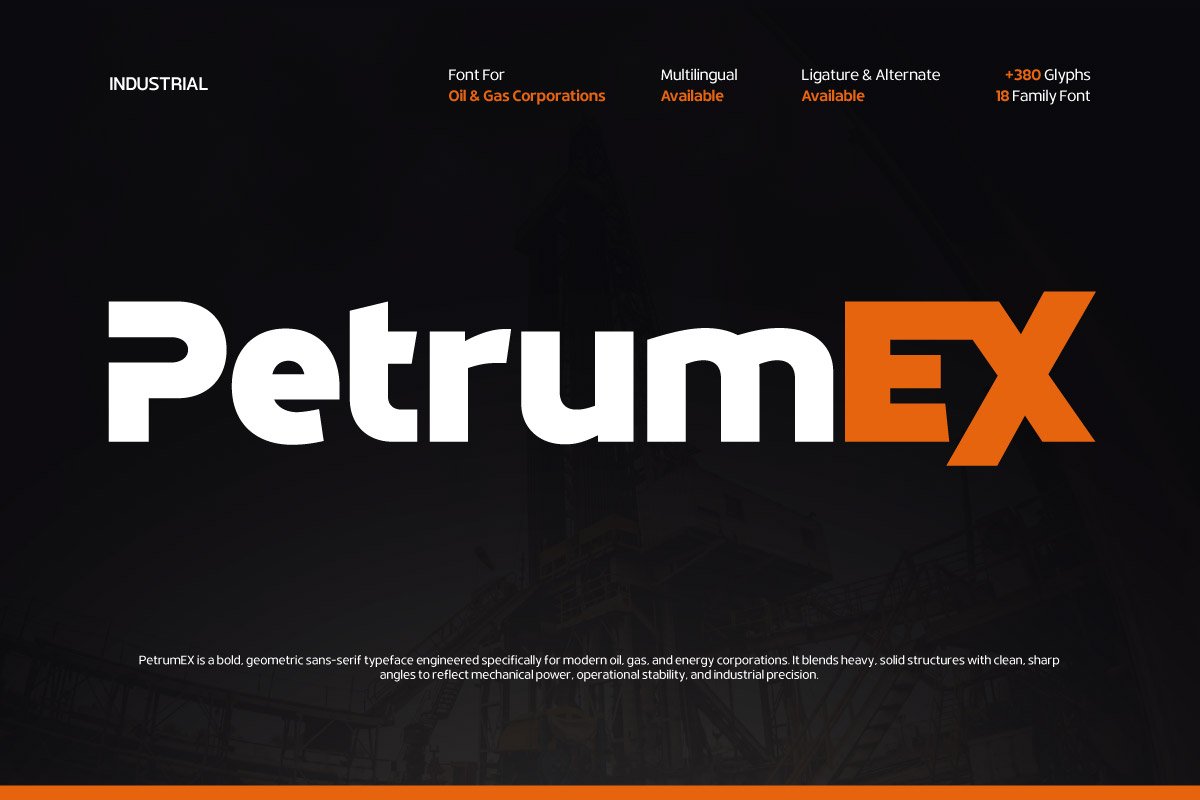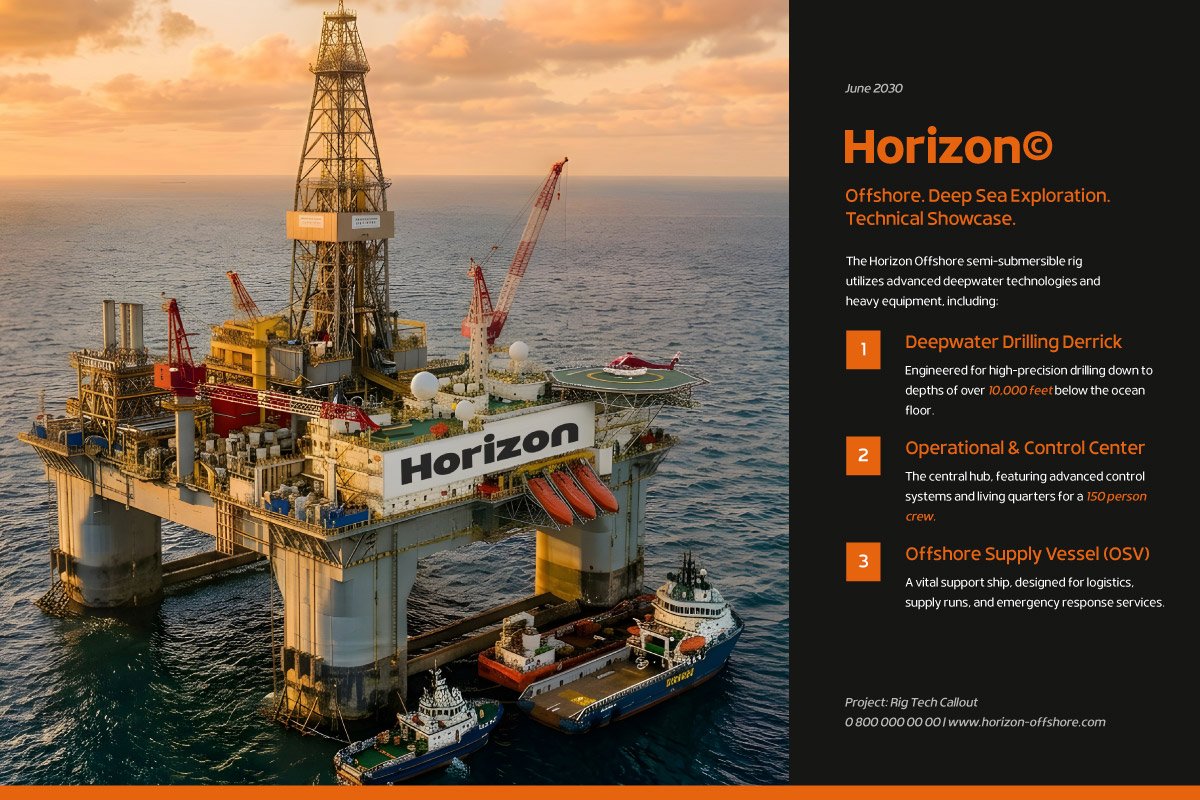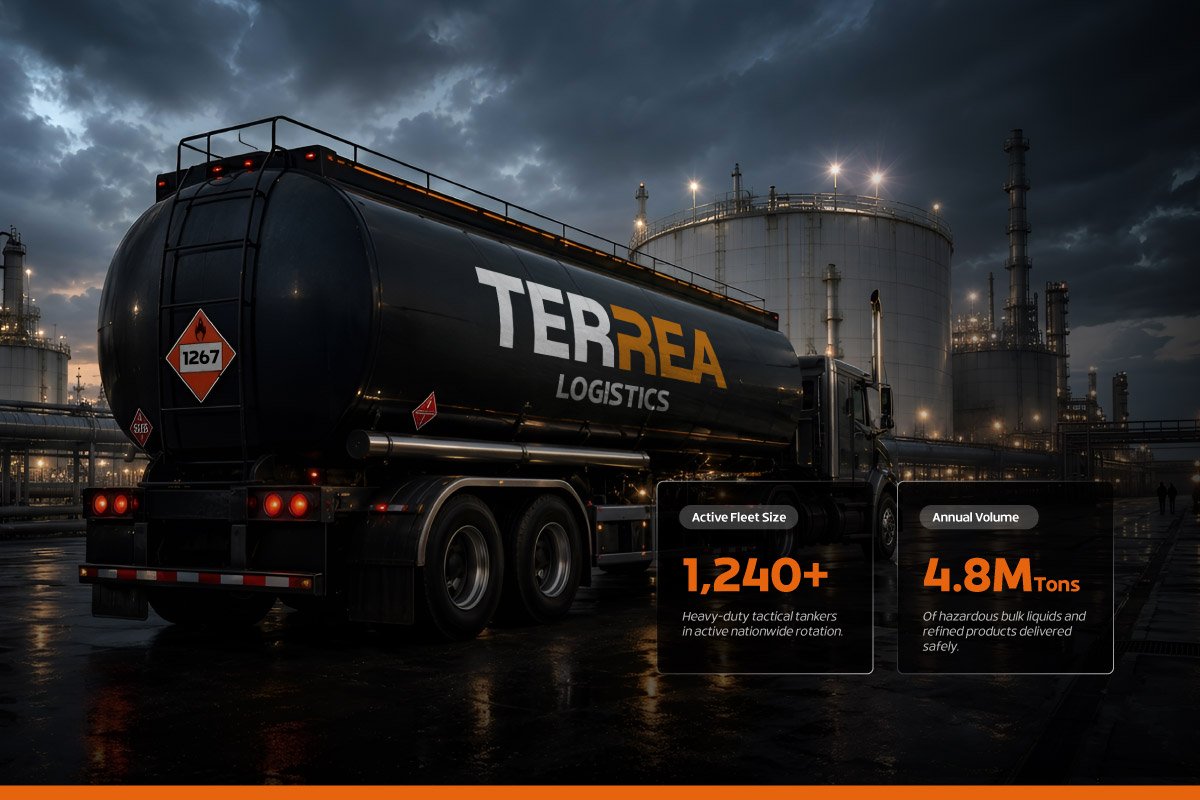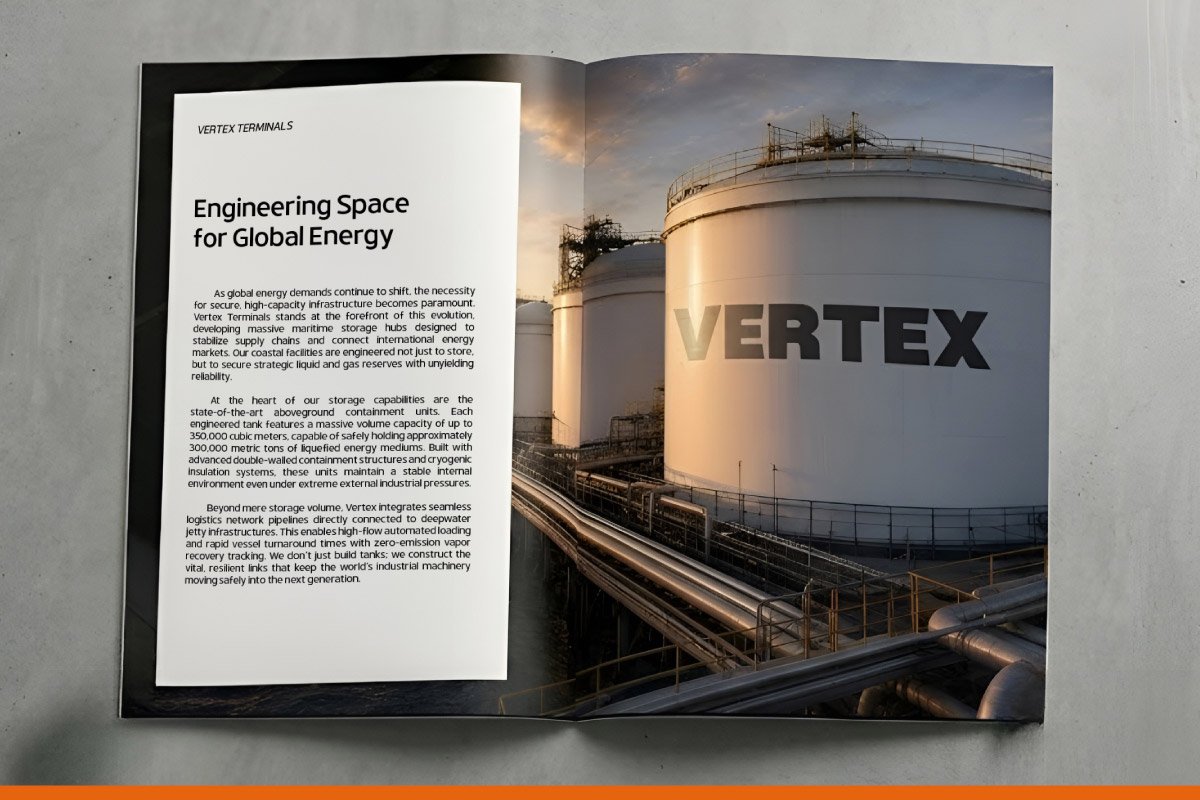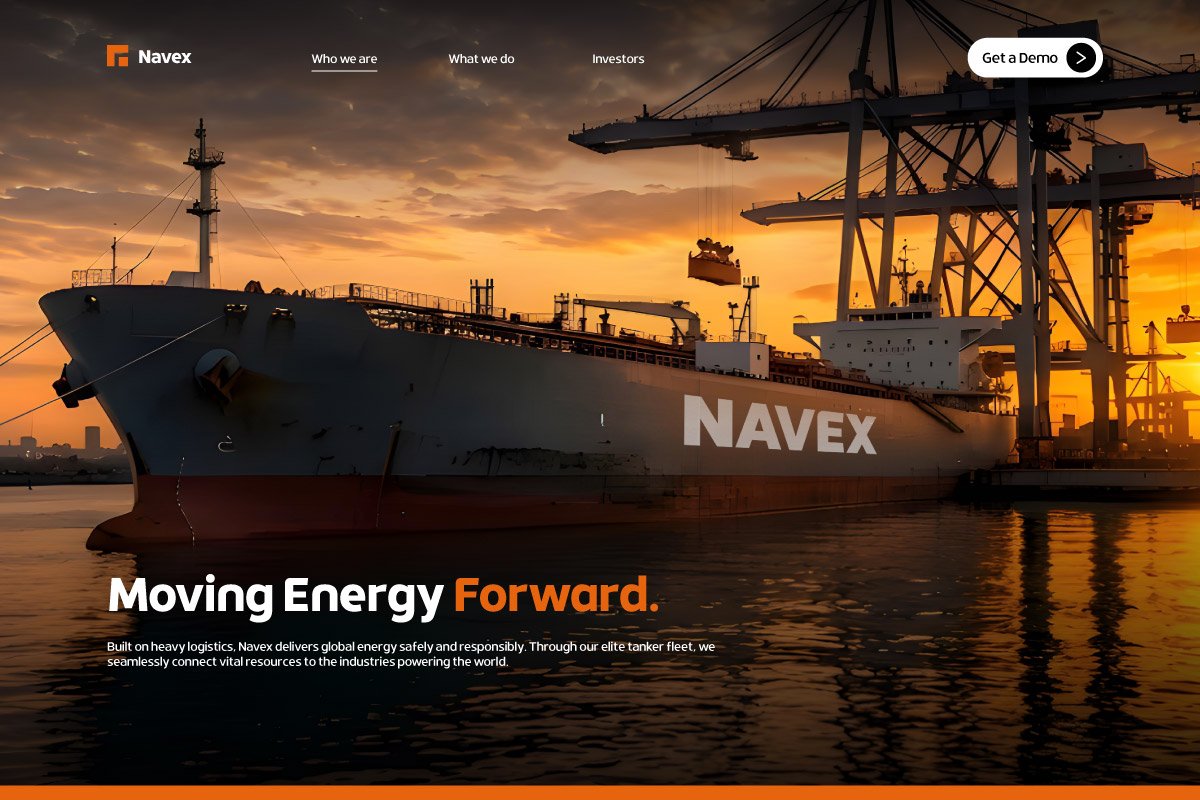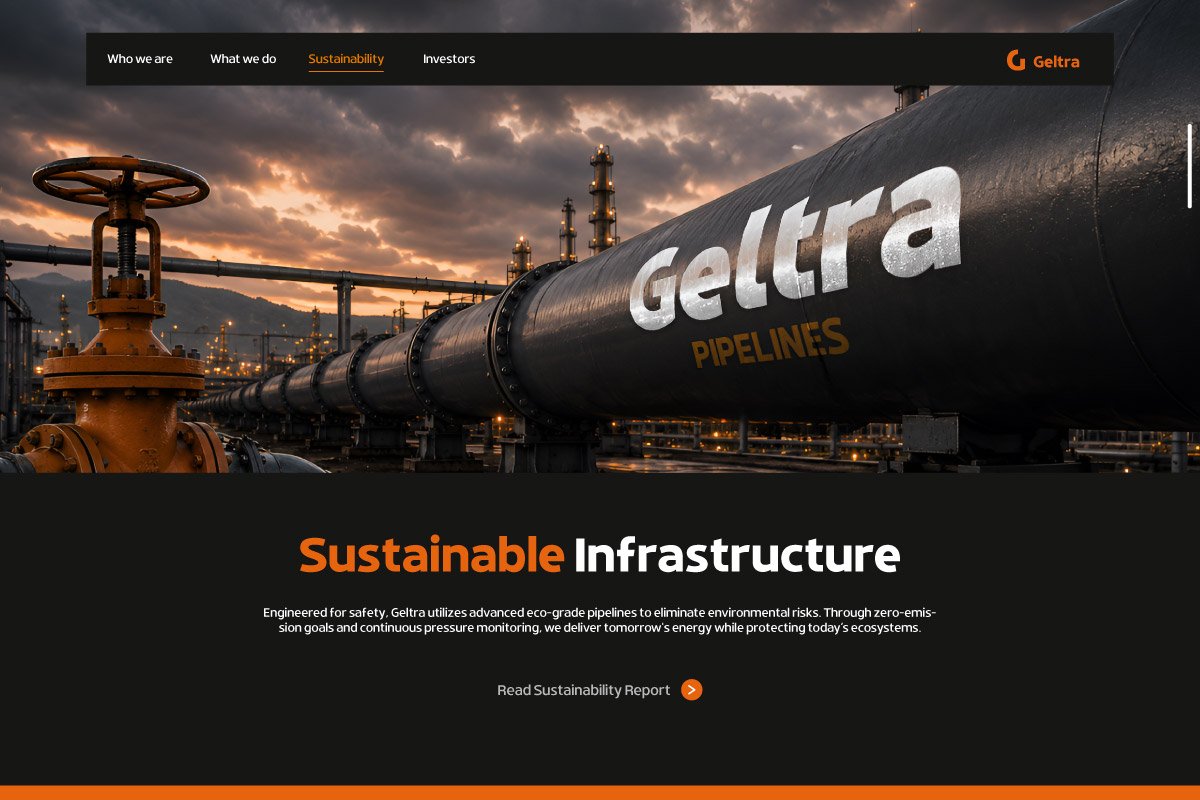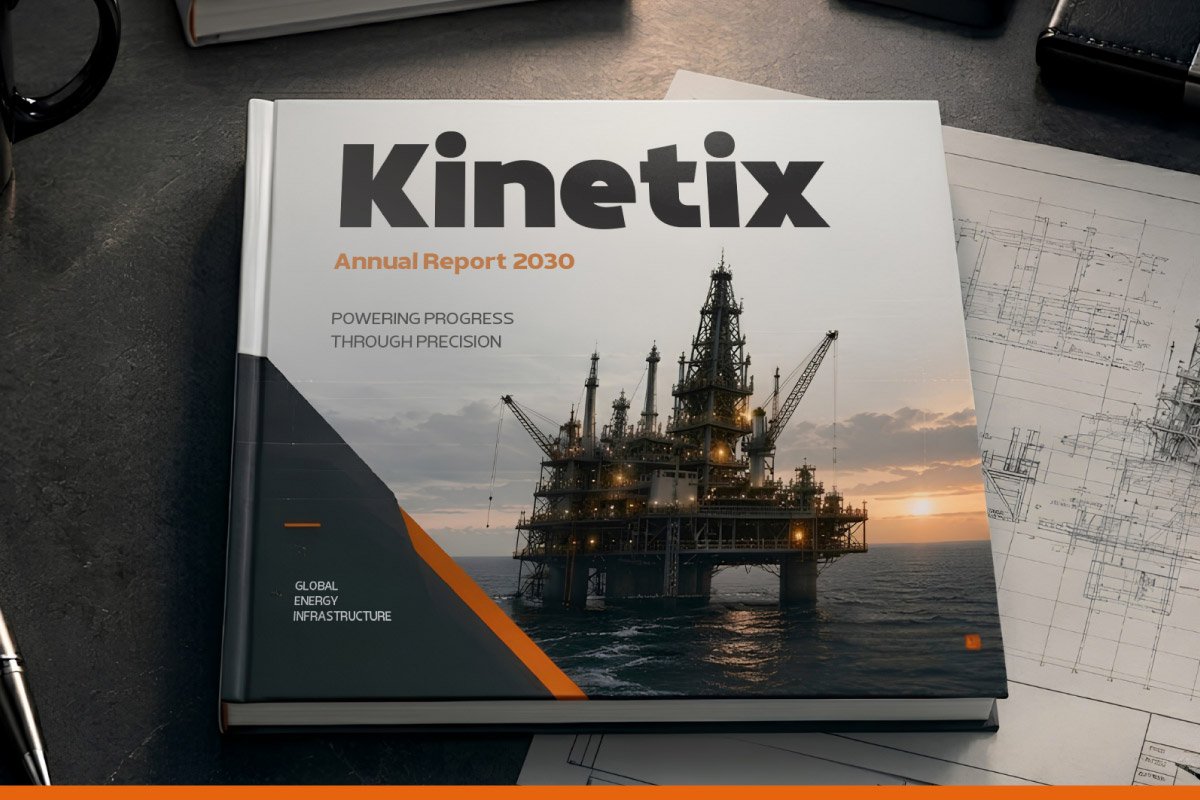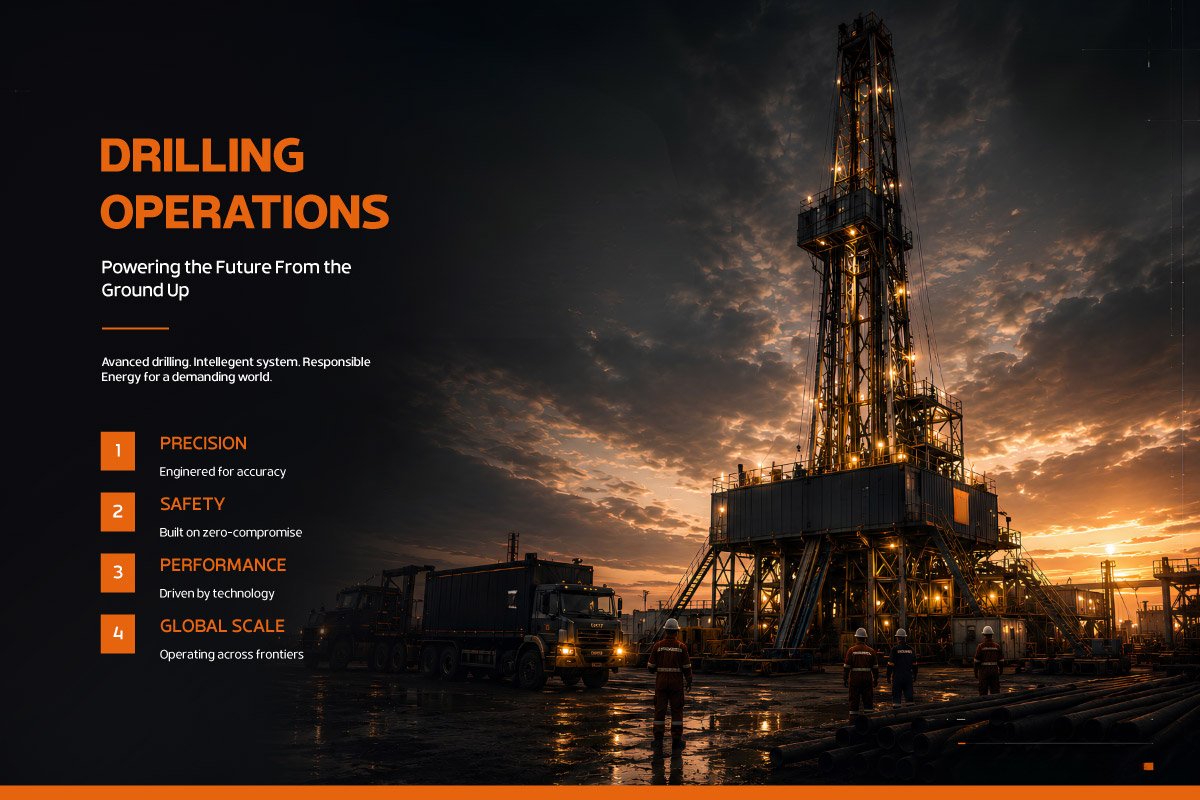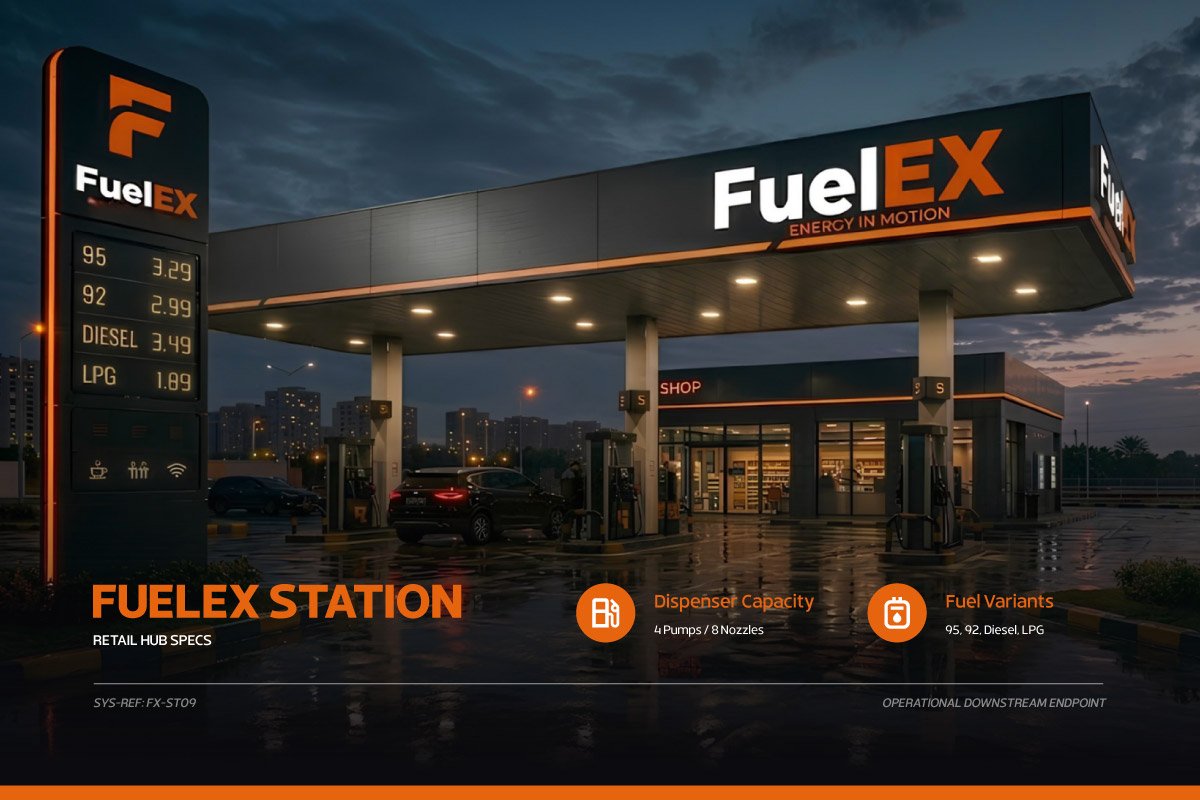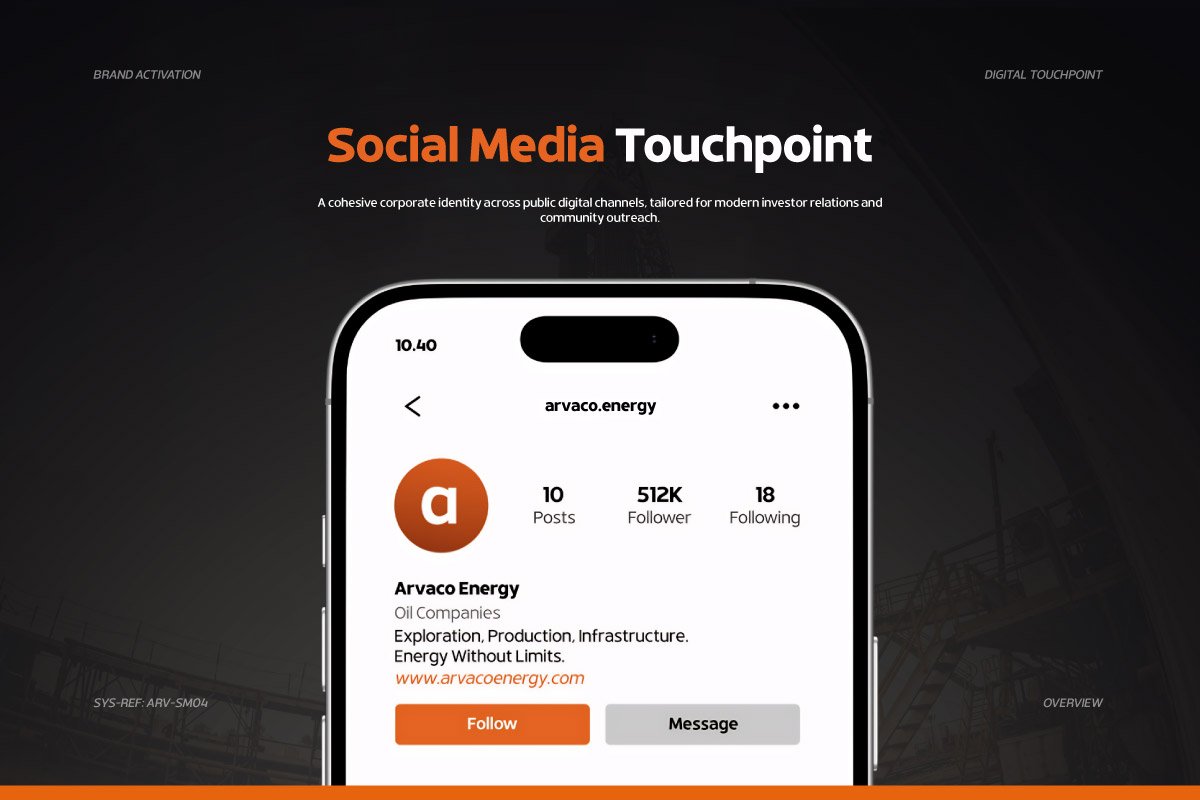
PetrumEX – Sans for Oil & Gas Industry
PetrumEX – Industrial Energy Sans is a modern sans serif typeface engineered specifically for energy, oil & gas, manufacturing, and industrial corporate branding. Its bold geometric structure and solid letterforms create a strong sense of reliability, operational stability, and technical precision—qualities that are essential in today’s industrial sector. Clean shapes combined with sharp industrial-inspired details give the font a powerful yet highly readable appearance.
This typeface is perfectly suited for energy company logos, engineering websites, corporate identities, industrial presentations, annual reports, fuel branding, signage systems, and oil & gas marketing materials. Its commanding visual presence helps businesses communicate professionalism, credibility, and long-term strength across both digital and print applications.
Featuring 380+ glyphs, 18 font families, multilingual support, ligatures, and stylistic alternates, PetrumEX provides designers with the versatility needed to build distinctive and scalable brand systems. It is an excellent choice for energy corporations, refinery businesses, industrial manufacturers, engineering firms, logistics companies, and technology-driven enterprises.